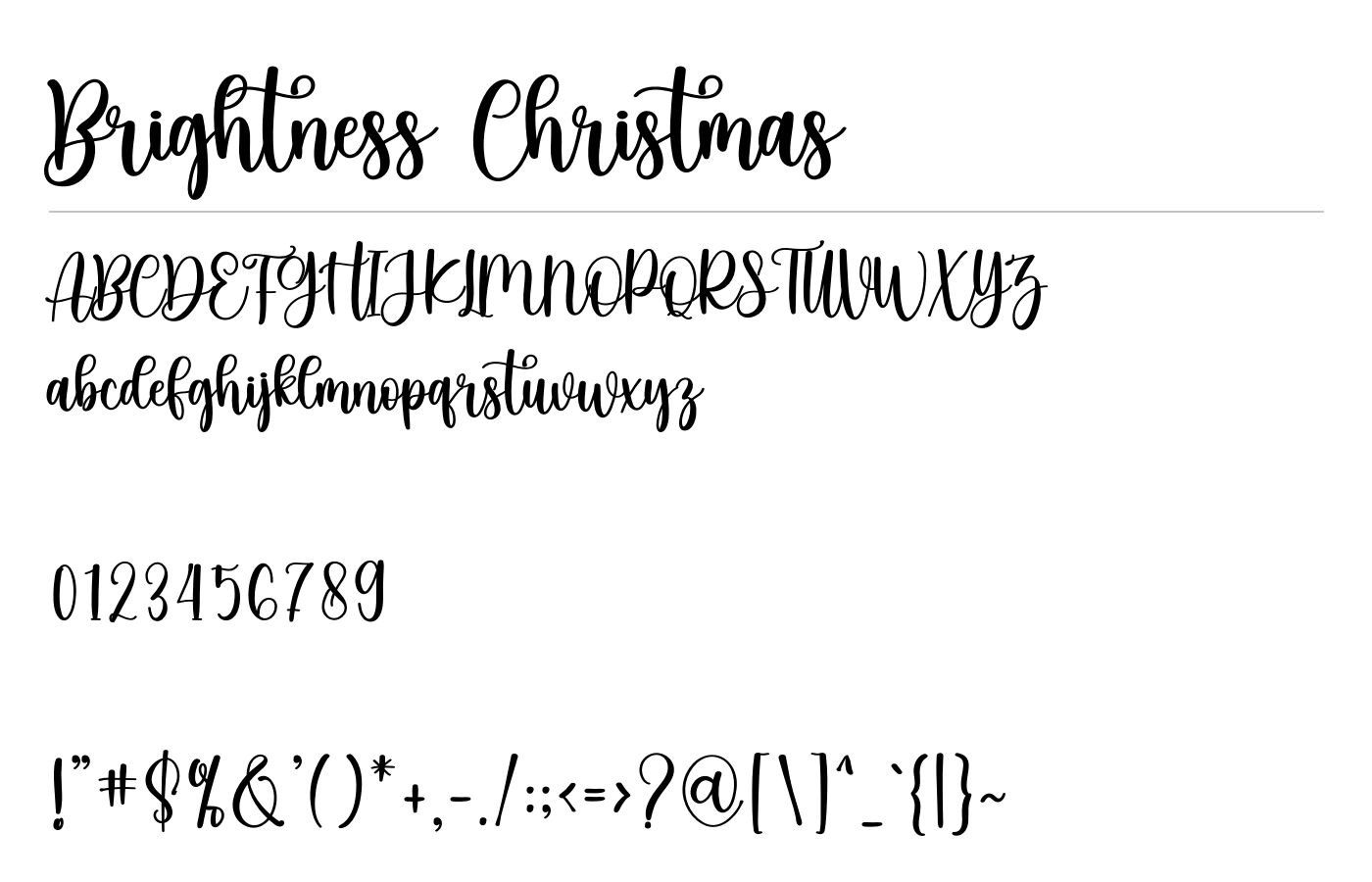
Brightness Christmas is a playful and elegant script font with a hand-lettered feel, featuring smooth, flowing strokes and decorative swirls that evoke a festive and joyful mood. Its moderate weight and natural, slightly condensed letterforms make it perfect for holiday-themed designs, invitations, and branding where a warm, cheerful personality is desired. This font shines in creative, seasonal projects that seek to convey charm and celebration with a stylish yet approachable touch.
Brightness Christmas Font